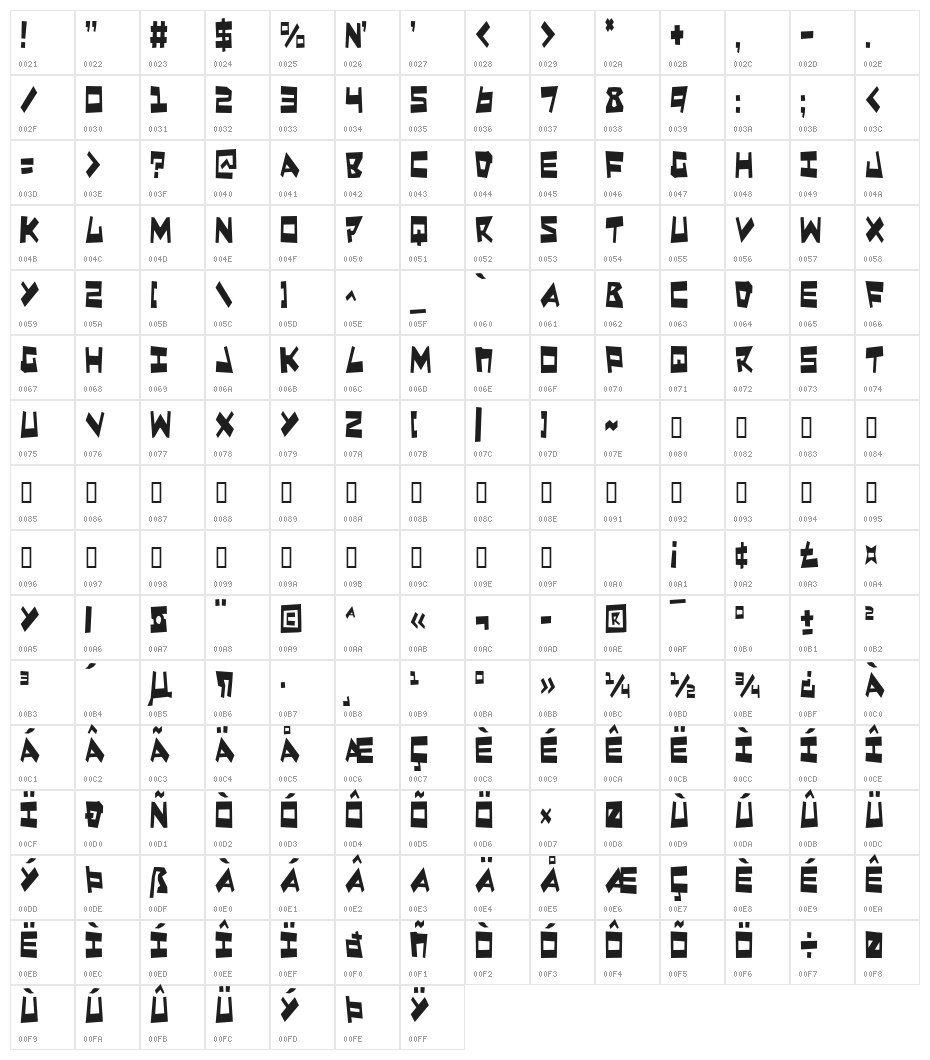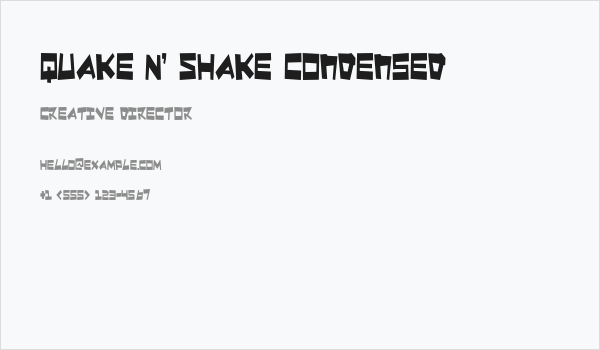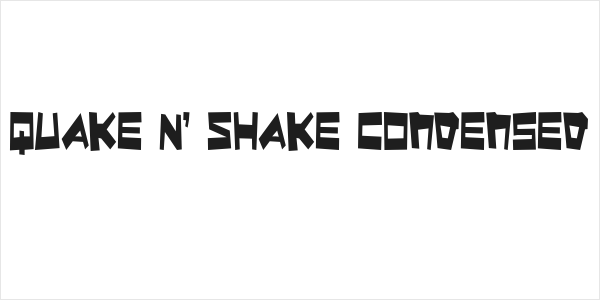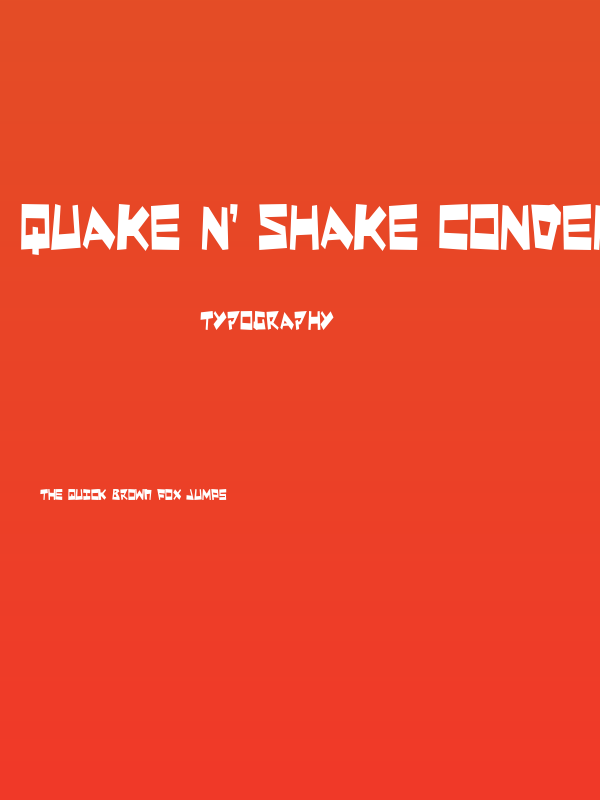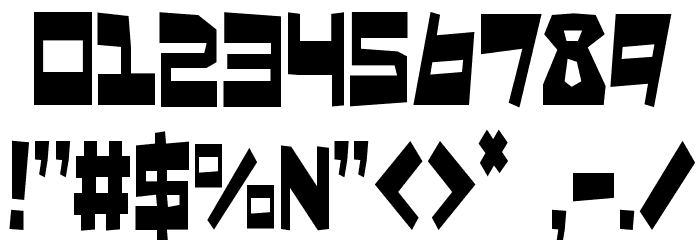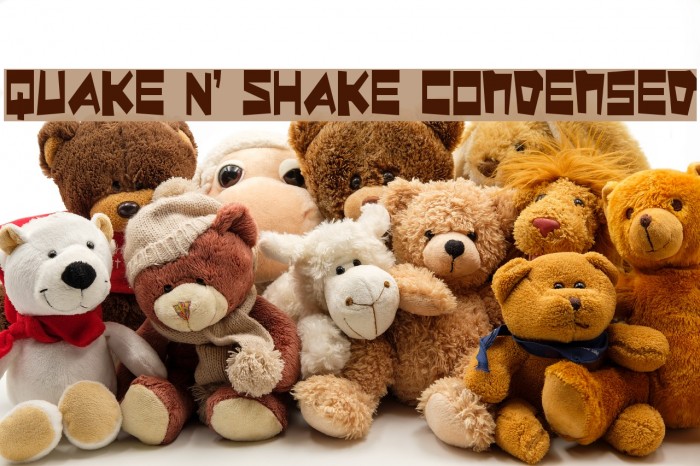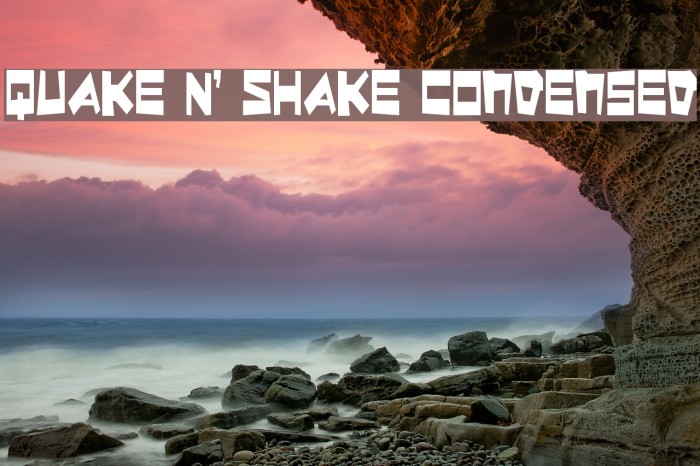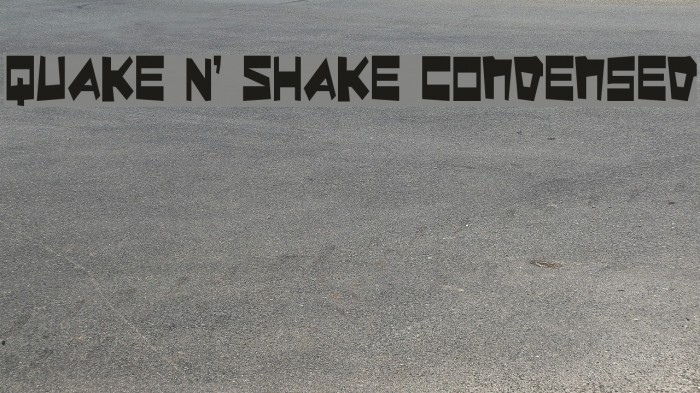
Quake & Shake Condensed Font
Quake & Shake Condensed Description
This font features a bold, angular design with a distinct geometric style. The characters are sharply cut, giving an impression of movement and energy, reminiscent of seismic activity. The uppercase and lowercase letters maintain a consistent height, creating a uniform appearance. Numbers and special characters follow the same dynamic style, ensuring cohesion across all elements. The condensed width of the font allows for efficient use of space, making it suitable for impactful headlines or titles. Its unique style makes it stand out, ideal for projects that require a strong visual presence.
| Proposed Projects | Ideal for posters, logos, video game titles, and any project needing a bold, energetic look. |